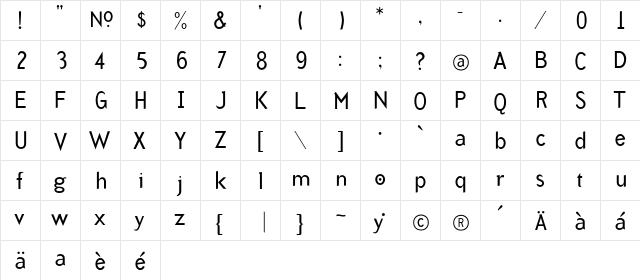
IndustrySans1 Regular
Design Context for IndustrySans1 Typeface
IndustrySans1 is a composed and adaptable typeface that performs quietly and consistently across a wide range of design contexts.